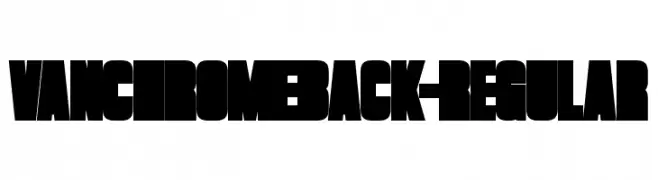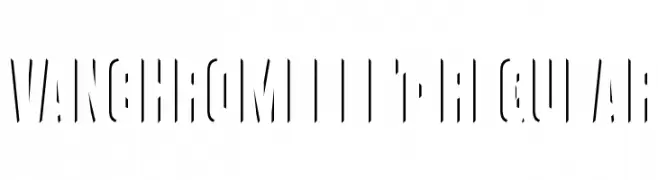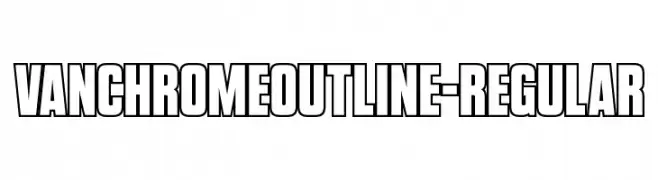
A bold, blocky font with a strong visual impact.
A modern, stencil-inspired font with bold, geometric lines and high contrast.
A bold, outlined font with a modern and geometric style, ideal for impactful displays.